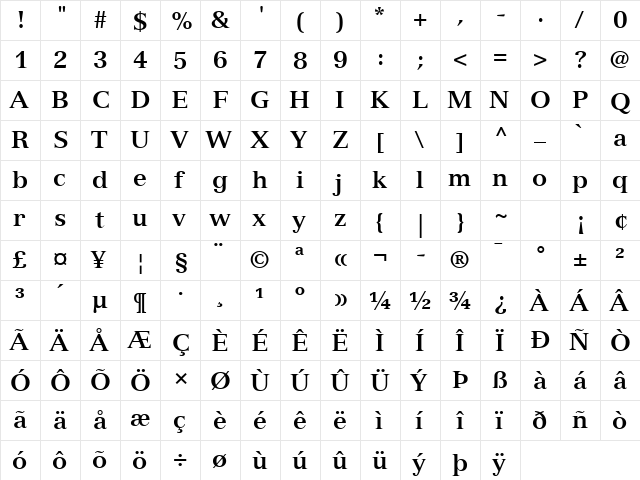
Versailles LT Com 75 Bold
| Foundry | Linotype GmbH |
| Designer | Adrian Frutiger |
Design Context for Versailles LT Com Typeface
Versailles LT Com offers clean, dependable letterforms without strong stylistic allegiance, making it a practical choice for designers who need flexibility. Its bold stroke weight gives it real presence on the page.